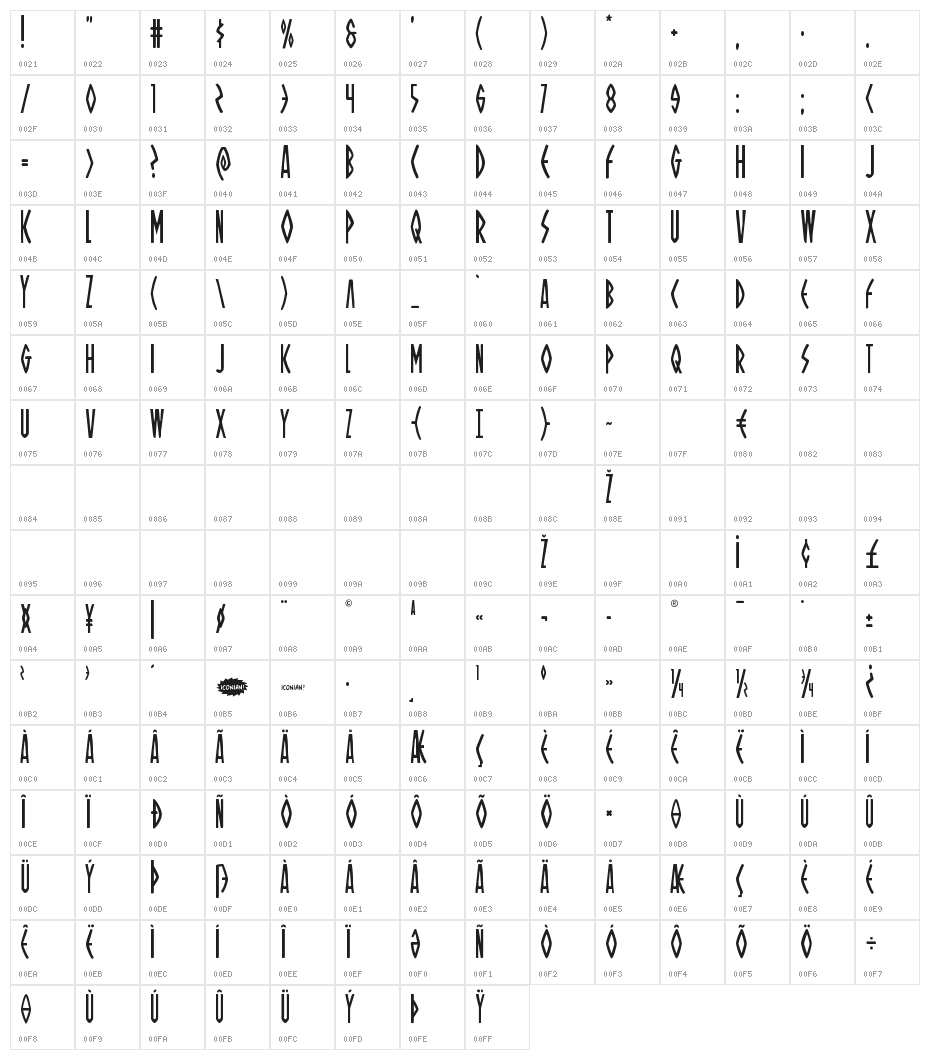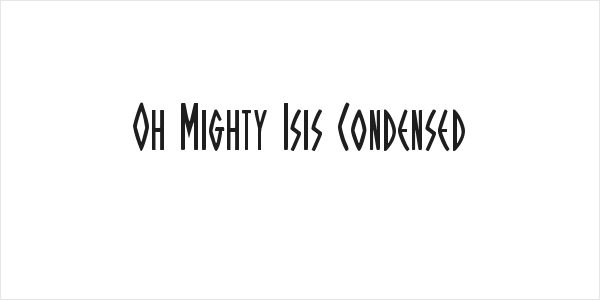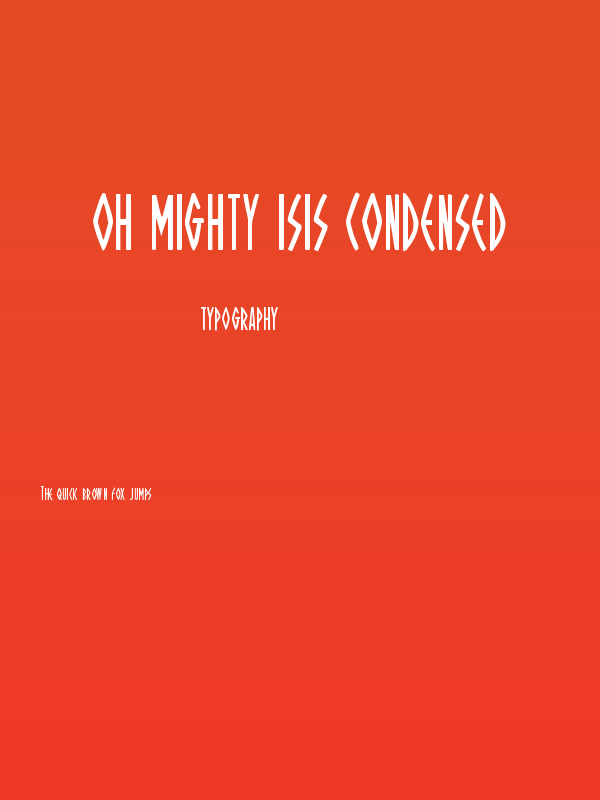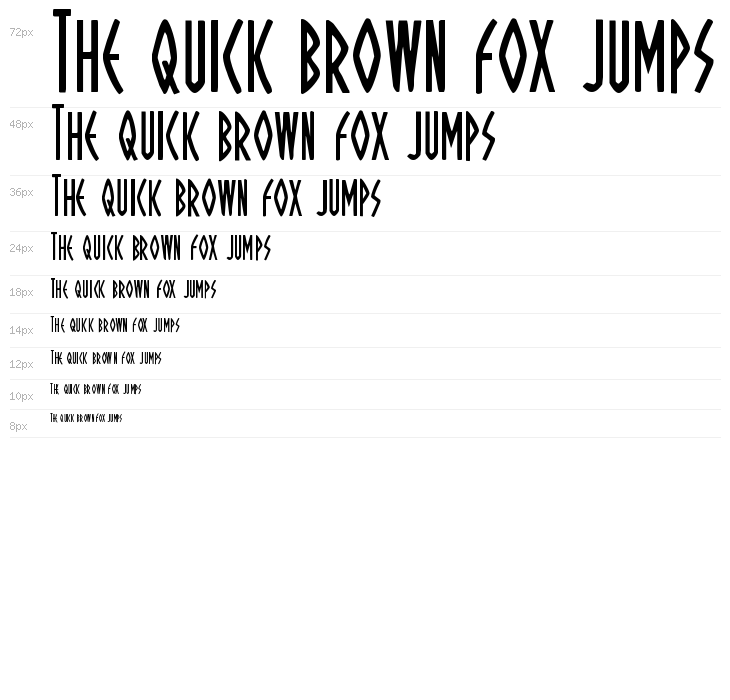
Oh Mighty Isis Condensed Font
Oh Mighty Isis Condensed Description
This font features a bold and condensed style with tall, narrow characters that create a striking visual impact. The uppercase letters are particularly elongated, giving a sense of height and elegance. The angular and geometric shapes of the letters add a modern and edgy feel, making it suitable for attention-grabbing headlines or titles. The numbers and special characters maintain the same condensed and bold characteristics, ensuring consistency across all text elements. The overall design is clean and sharp, with a strong presence that commands attention.
| Proposed Projects | Ideal for posters, headlines, branding, and any project requiring a bold, impactful typeface. |